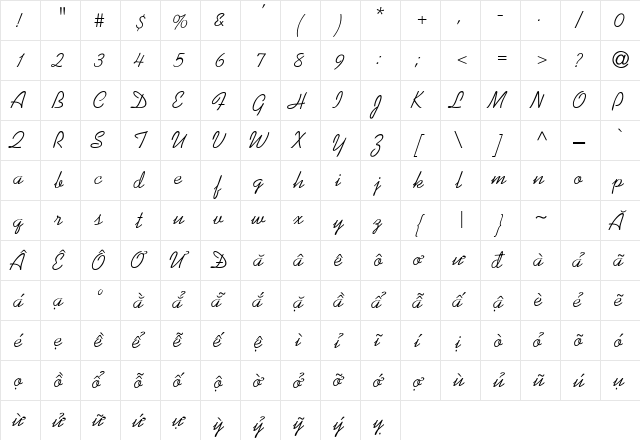
.VnKoala Regular
Design Context for .VnKoala Typeface
.VnKoala is a composed and adaptable typeface that performs quietly and consistently across a wide range of design contexts.